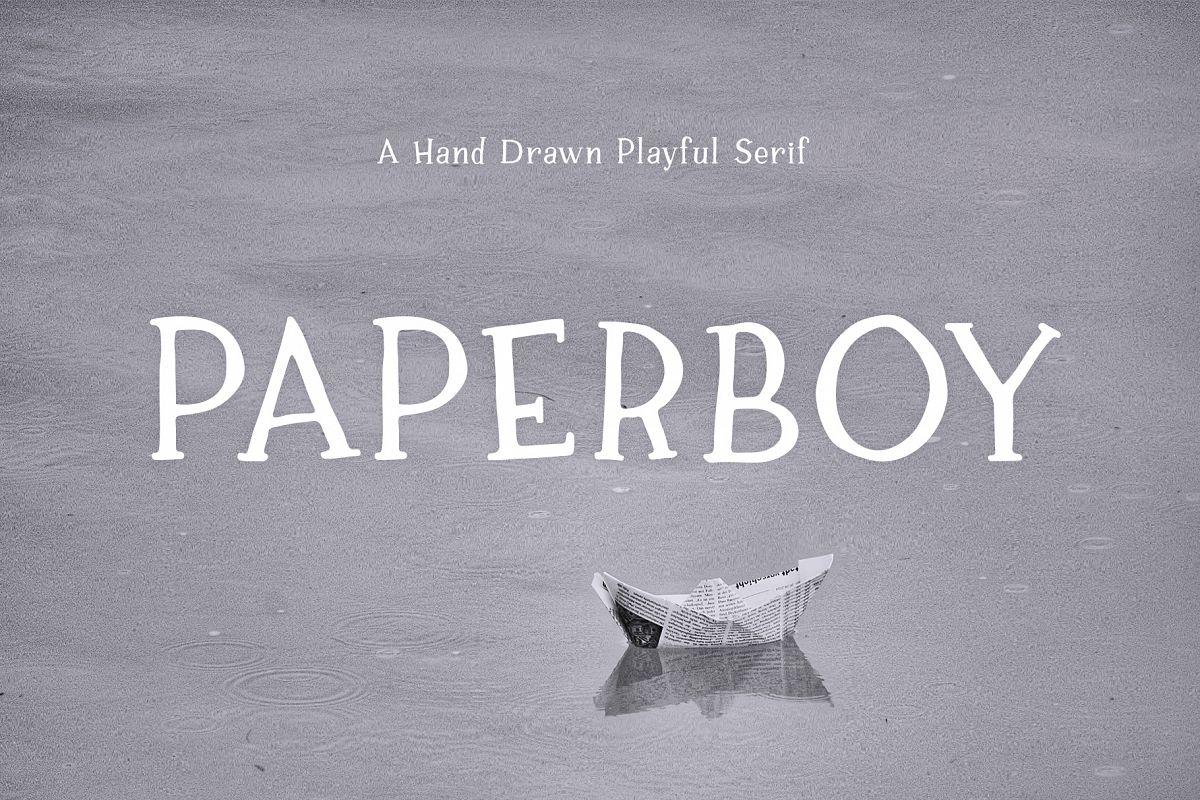
Paperboy | A Hand Drawn Playful Serif
Paperboy
Paperboy now has a lot more characters (370 in total), better kerning and wider language support!
Paperboy is a hand drawn serif with a whimsical look. With it’s playful attitude, Paperboy takes out the seriousness that comes with serif fonts, even though it follows the same typographic principles.
Paperboy Features
• Uppercase & lowercase letters
• Numbers & punctuation
• Multilingual characters